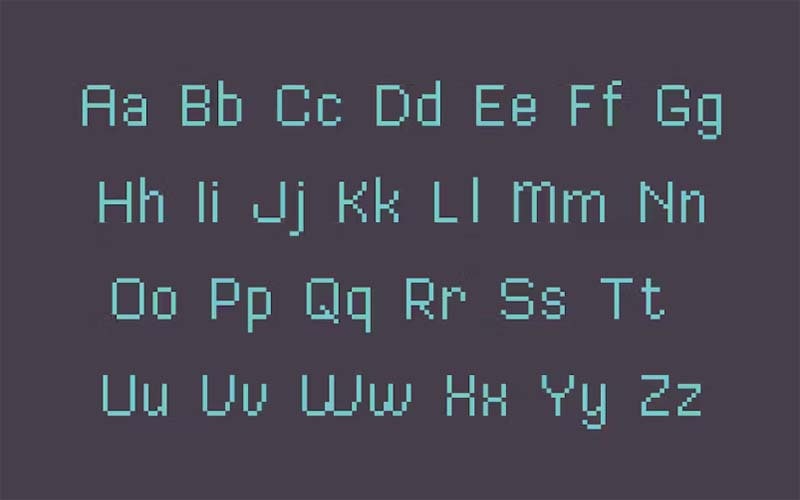
Billy Pixel Font is a retro font that looks very awesome if you have seen it in images. Mr. D. took charge of designing and releasing it for the first time.
This display font comes in three versions including regular, bold, and light, and possesses Opentype and Truetype features. So, it is a great tool to give any pixel design a unique and wonderful touch.
For more information on Billy Pixel Font, take a look at the font map images we’ve included here. The aspect that made him very famous because of his popular form.
Billy Pixel Font
| Style: | Display, Retro Typeface |
Along with those features, You can use it in a variety of design projects. For example, emblem projects, game titling, logos, web content, video titling, hoardings, visiting cards, and many more.